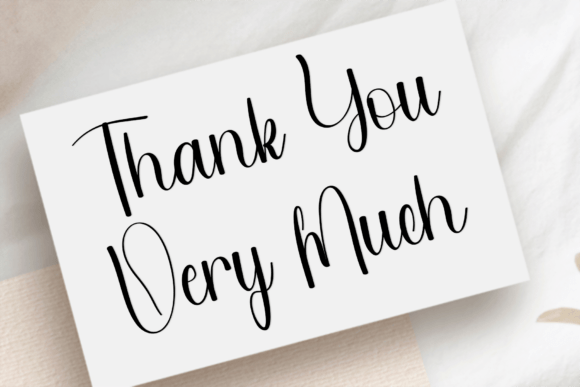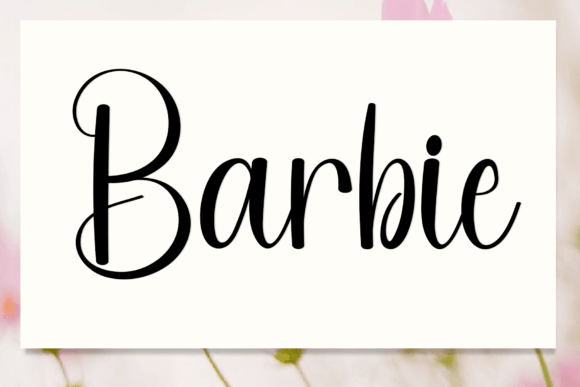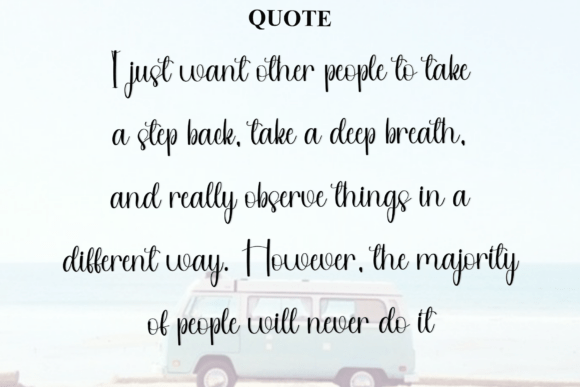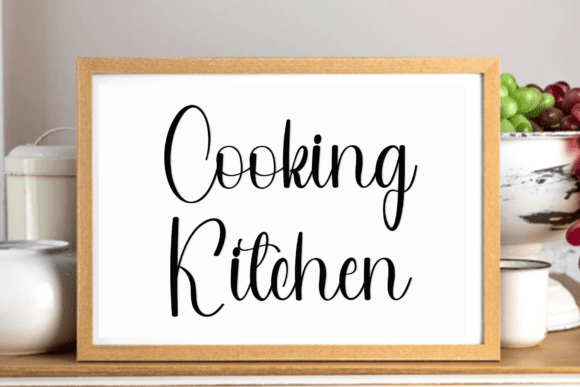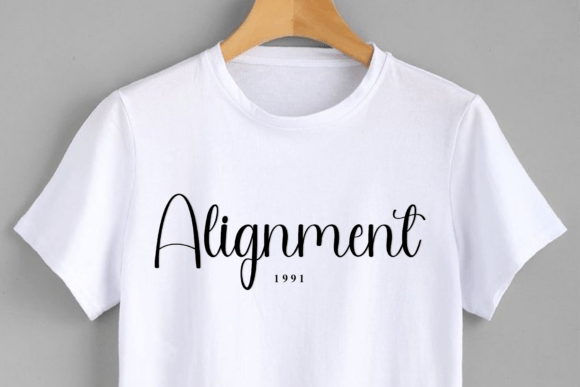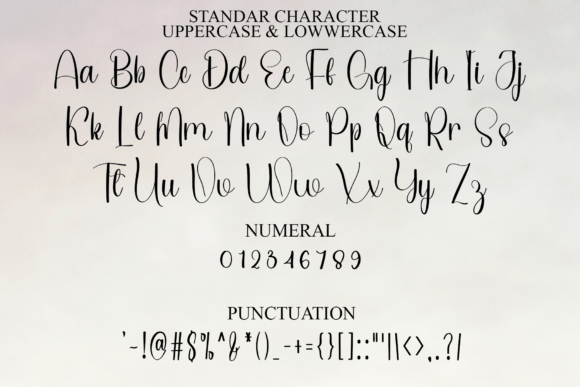
Introduction to Music Birthday Font
Music Birthday is a casual and creative font that exudes warmth and friendliness.
Key Features of Music Birthday Font
Why Choose Music Birthday Font?
Music Birthday Font offers exceptional quality and versatility, making it a valuable addition to your design toolkit. Whether you’re creating for personal projects or commercial use, Music Birthday Font delivers professional results.